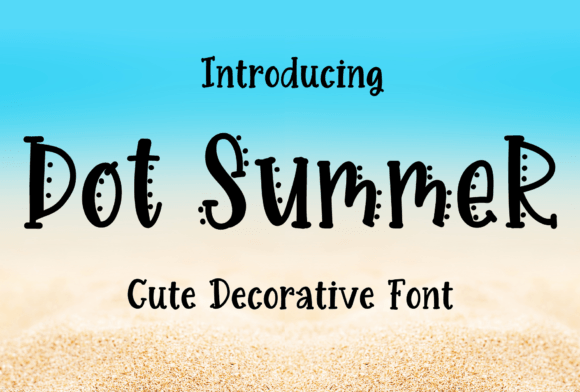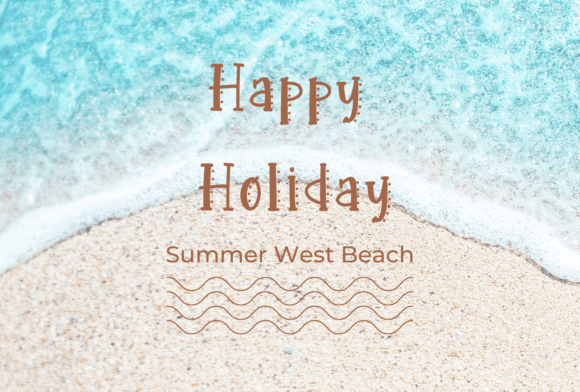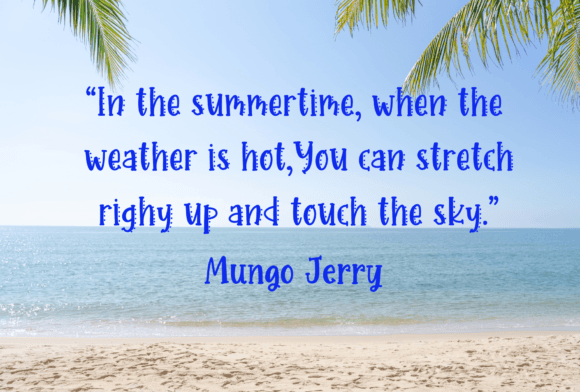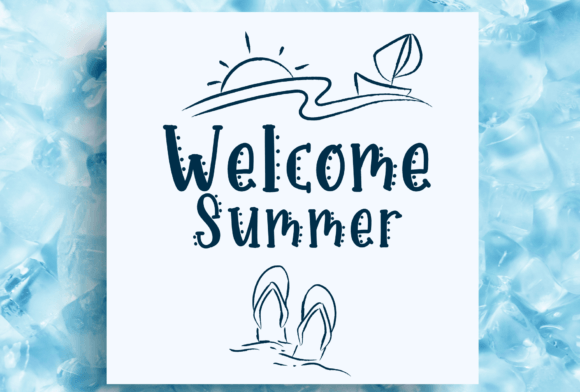
Dot Summer Font
About the Dot Summer Font
From logos to headlines, the Dot Summer Font is the perfect choice for making a lasting impression. Unleash a playful touch of charm with the Dot Summer font, exquisitely adorned with distinctive dots. This cute and quirky decorative font breathes life into birthday cards, Valentine’s Day greetings, festive Christmas invites, and special Anniversary notes. Dot Summer is not just for cards though, it seamlessly infuses a refreshing touch into products ranging from T-shirts and mugs to pillows and planners. Extend its playful allure to keychains, or let it become a conversation piece in wall art. With Dot Summer, every creation becomes so much more engaging and memorable.